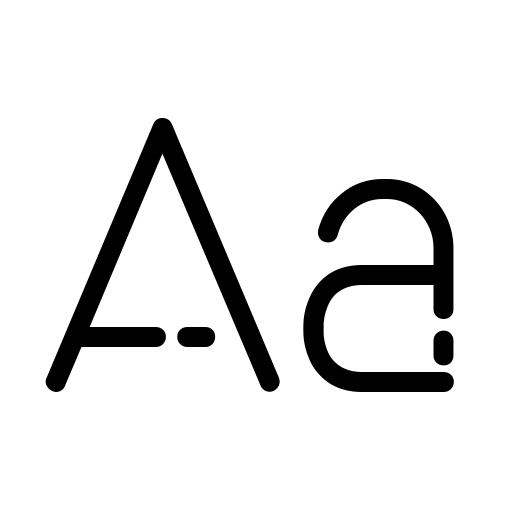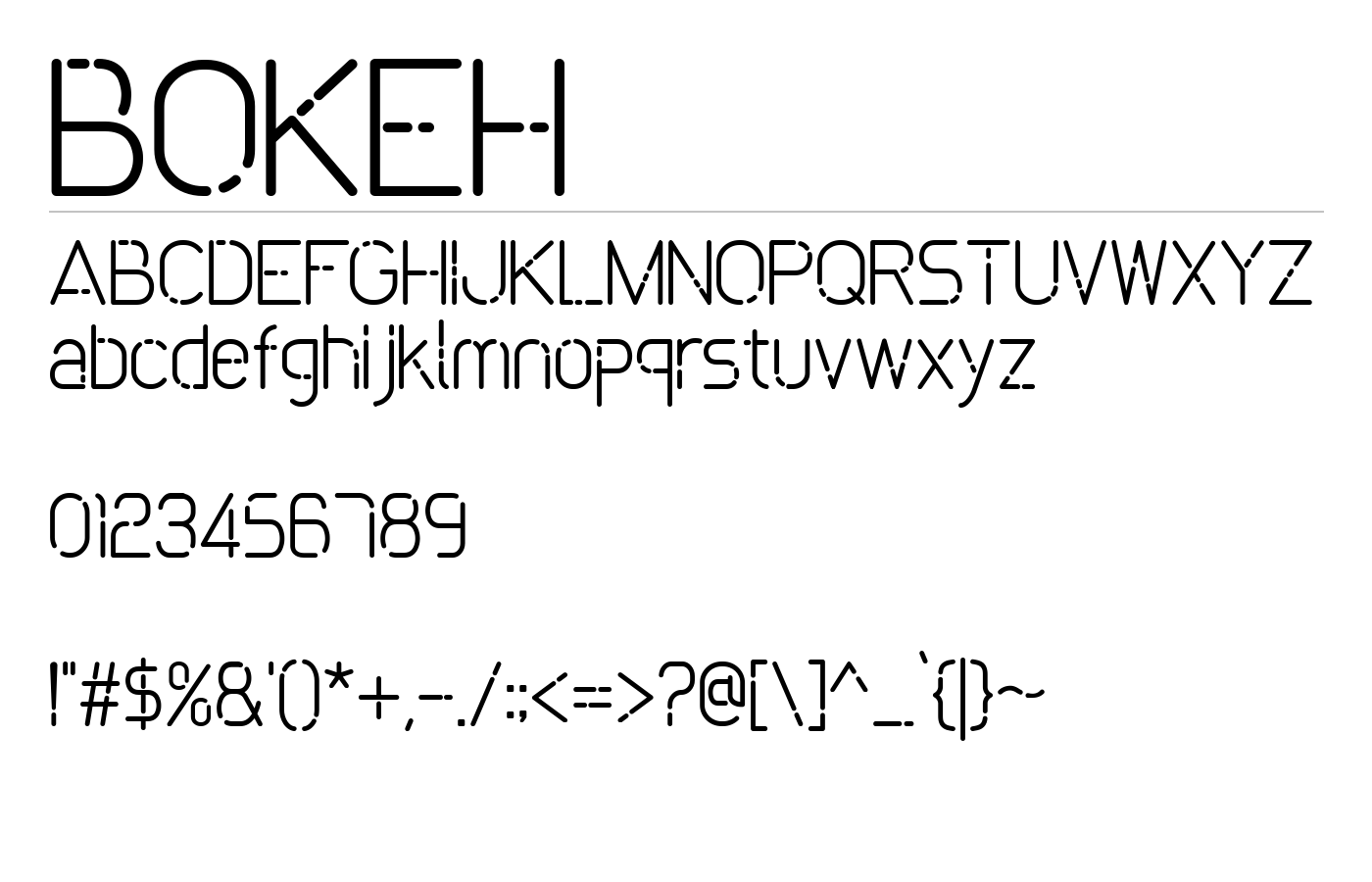
BOKEH is a modern, geometric sans serif font with a futuristic and minimalistic feel, characterized by its thin strokes and distinct segmented lines that create an almost digital or tech-inspired aesthetic. Its narrow width and medium x-height make it suitable for sleek, contemporary designs, especially in branding, posters, and headlines where a cutting-edge, innovative vibe is desired. This font stands out for projects seeking a unique, stylish look that merges simplicity with a high-tech personality.
BOKEH Font
About BOKEH Font